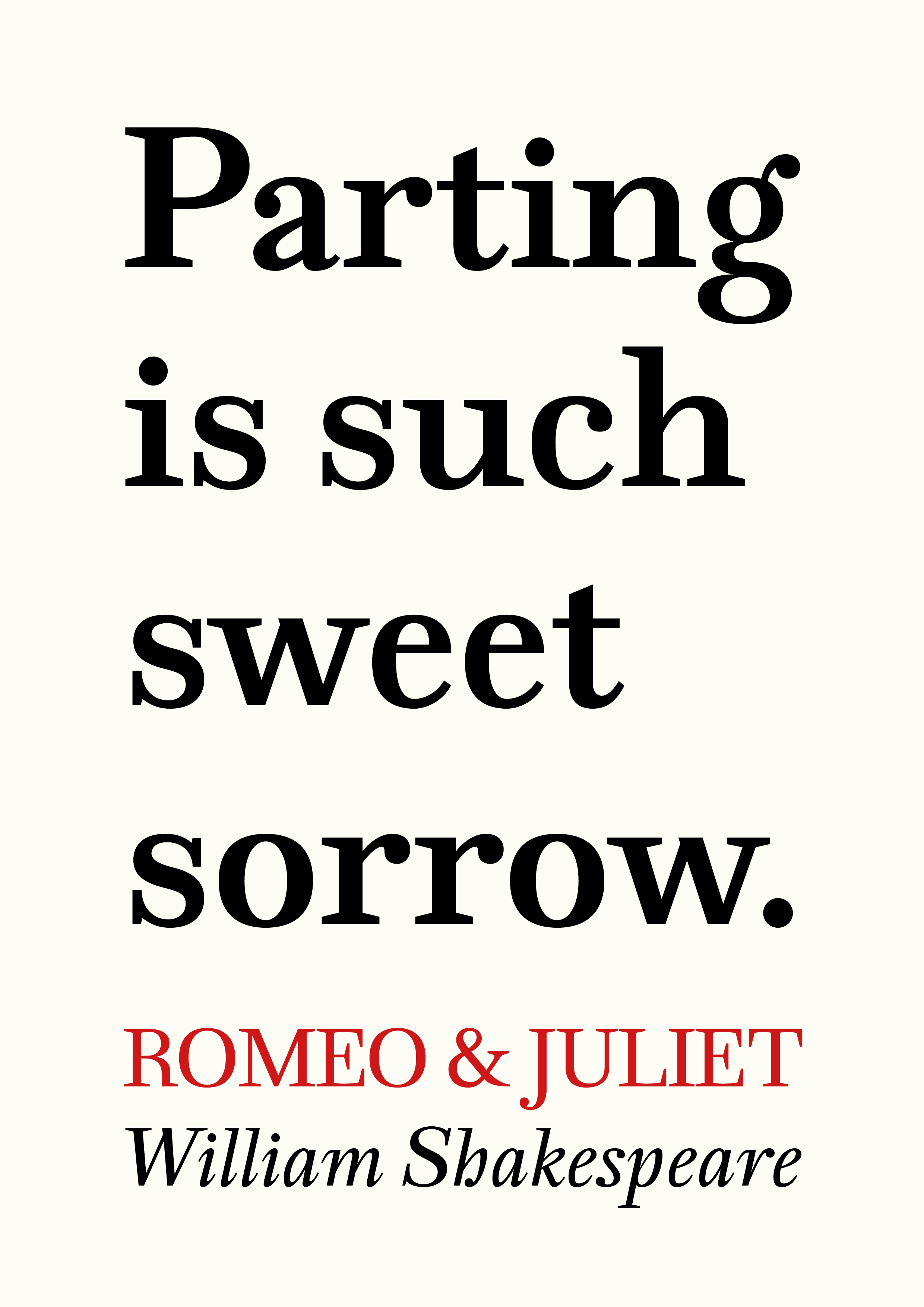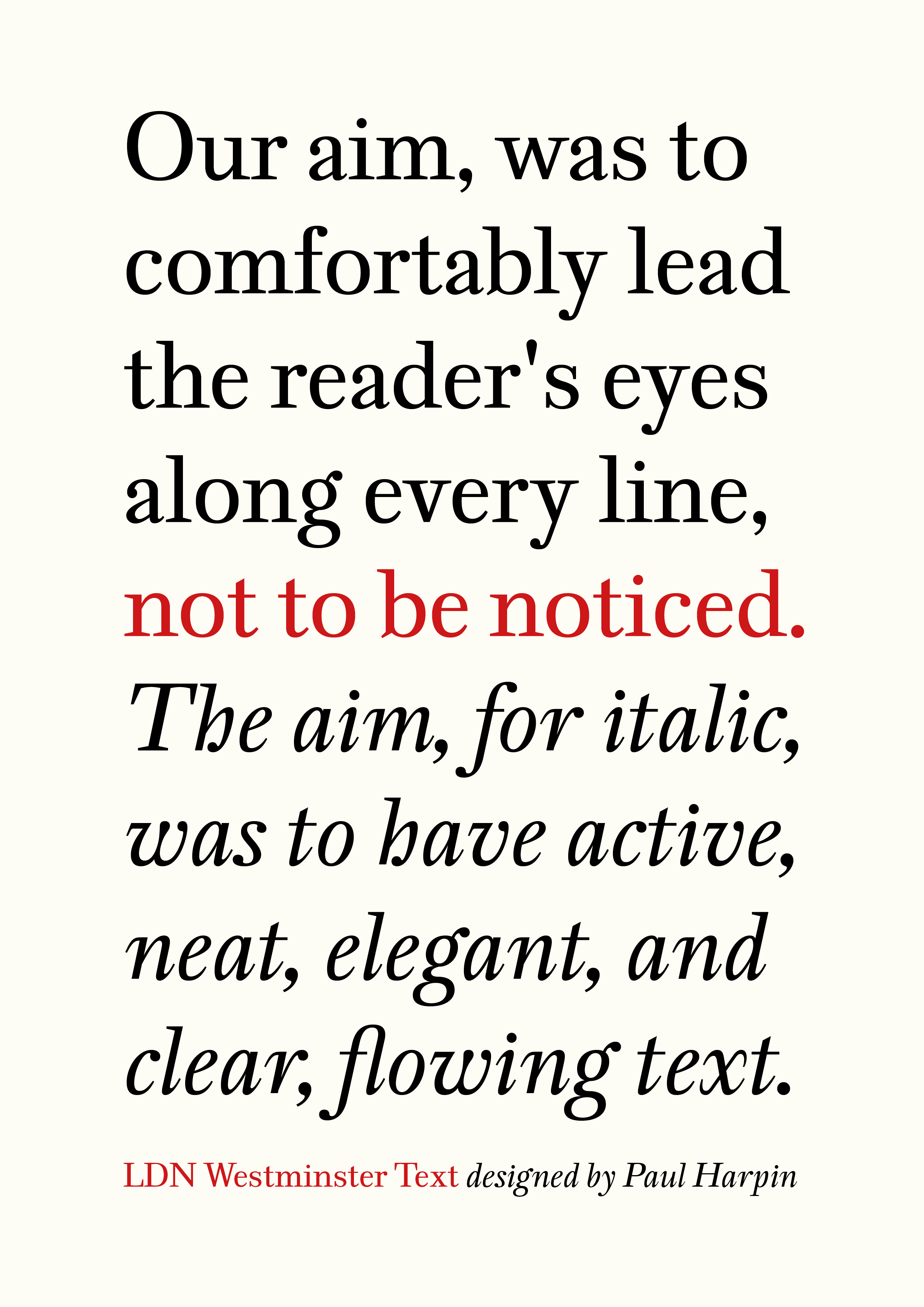
LDN Westminster Text
Paul Harpin designs books and magazines, and thought it would be useful to create his own book text typeface. Here it is, his LDN Westminster Text.
Harpin says “I've used many book text faces over the years: Caslons; Centuries; Baskervilles; Doves Type; Jensons & Jansons; Garamonds; Georgia and Swift. Some have a great italic, some have no italic and some have rather narrow numerals. They all have bits I really love. And there are many others I admire but haven't used yet: Imprint; Bell; Galliard and Hunt Roman for example. Some I dislike for book text: Plantin, Sabon, Bembo, Bodoni, Melior, Perpetua and Palatino.
What I wanted to achieve with the design: firstly, to comfortably lead the reader's eye along the line, so LDN Westminster Text has longish serifs (that are crisp and don't look eroded) and no distracting overworked details, just enough to add interest in larger sizes for running heads and chapter headings.
Secondly, invisibility — to be a great read, not to be noticed. An upright stance, good poise and a solid stature; active, beautiful, clear, flowing italic letters; full sets of clean neat numerals/fractions/inferiors/superiors for footnotes and indexing; very few data points (so the typeface will also work well on screens and on websites); largish punctuation; a text weight that tends towards ‘dark in colour’ rather than light; to be traditional with some added modern aspects.
Says Paul: “Obviously there are tight parameters to keep within for book text typefaces, but you can certainly do your own thing. I think I have. I hope you like it”.